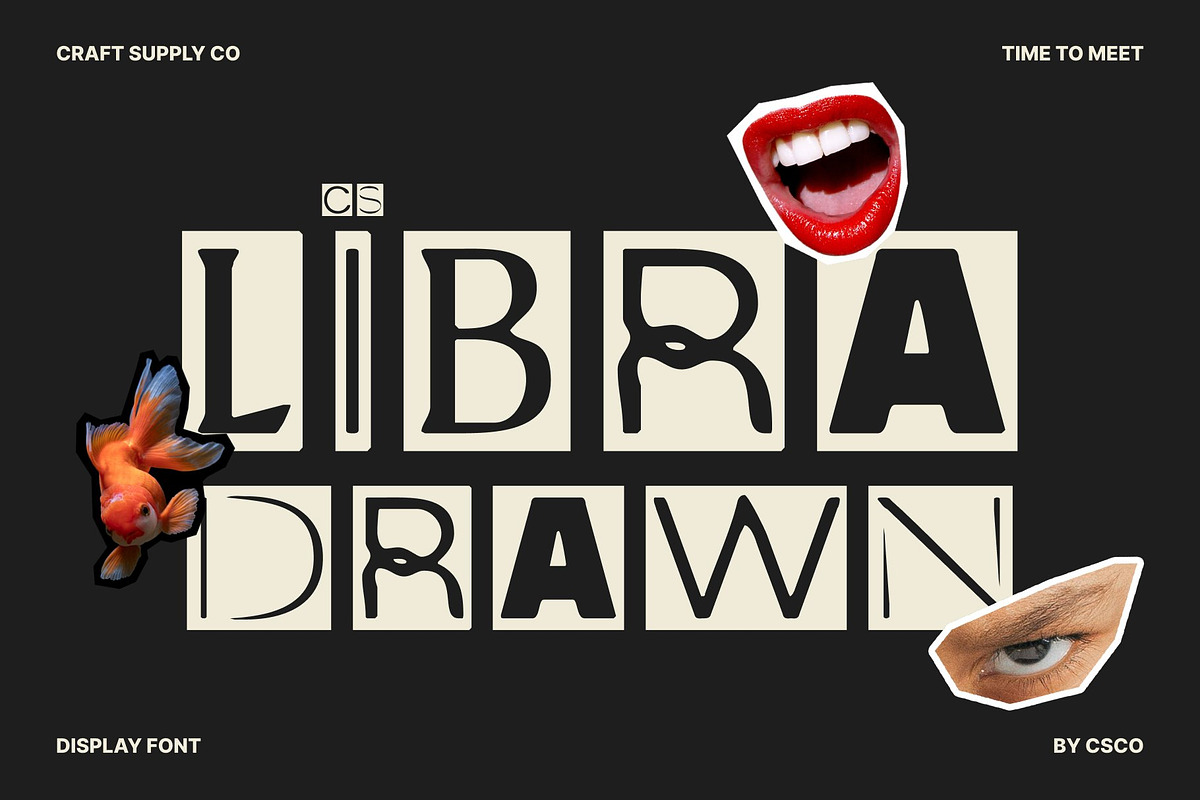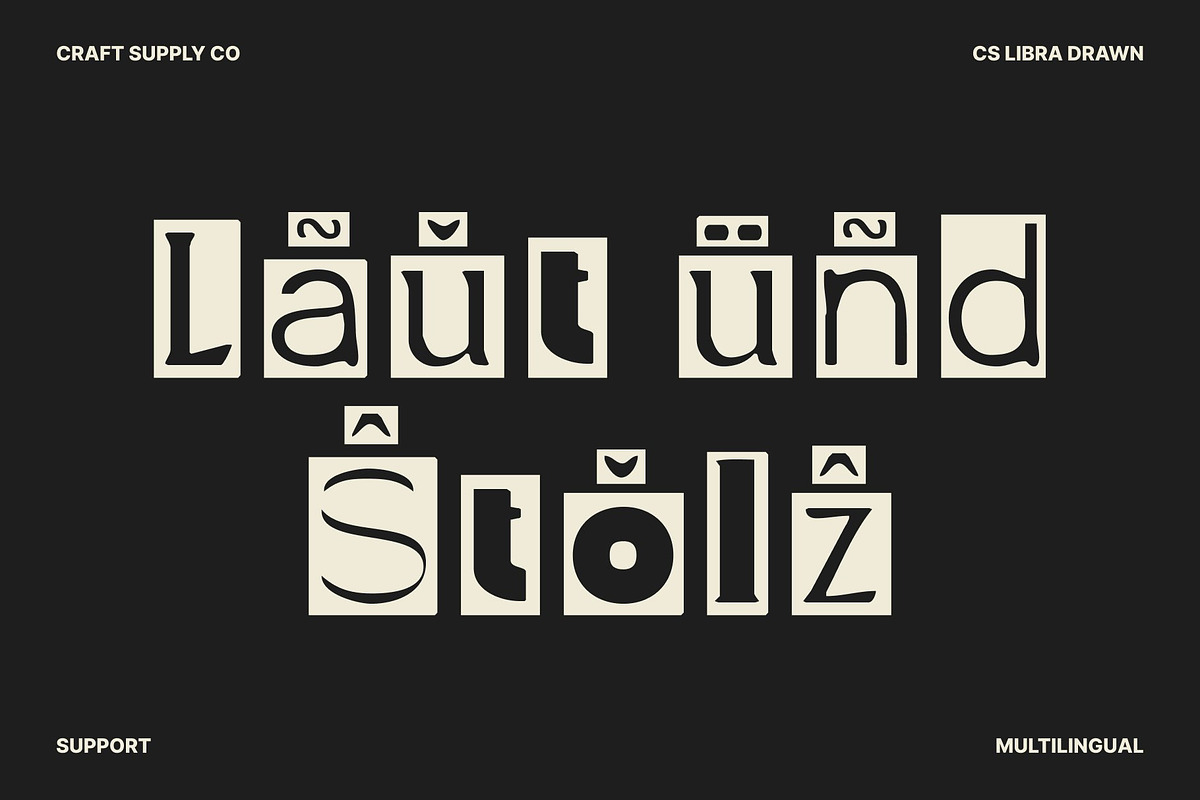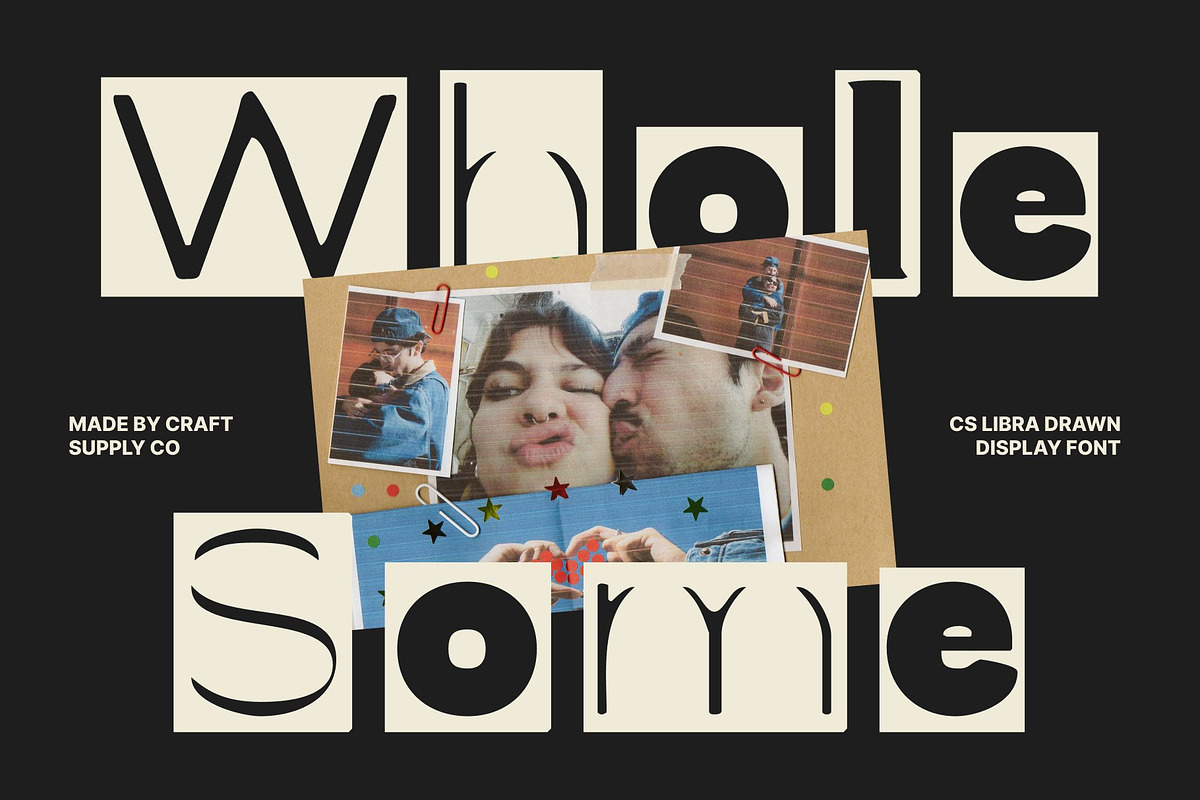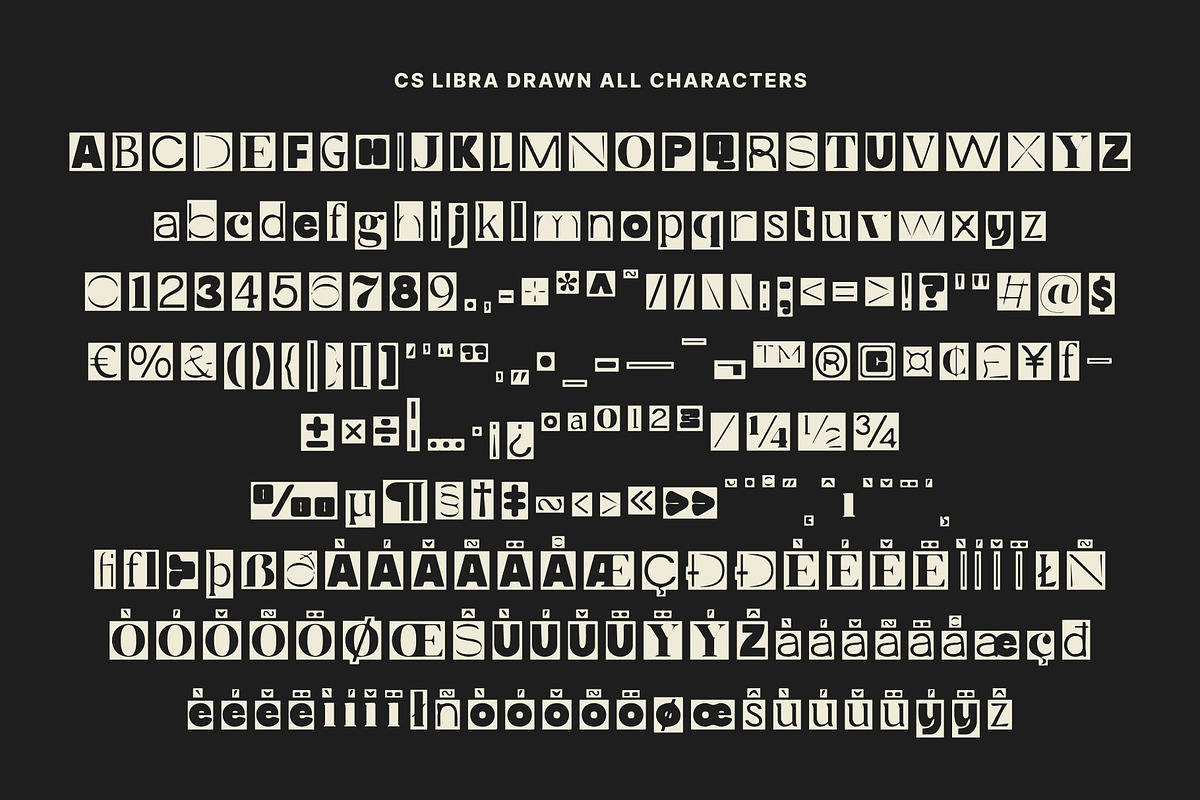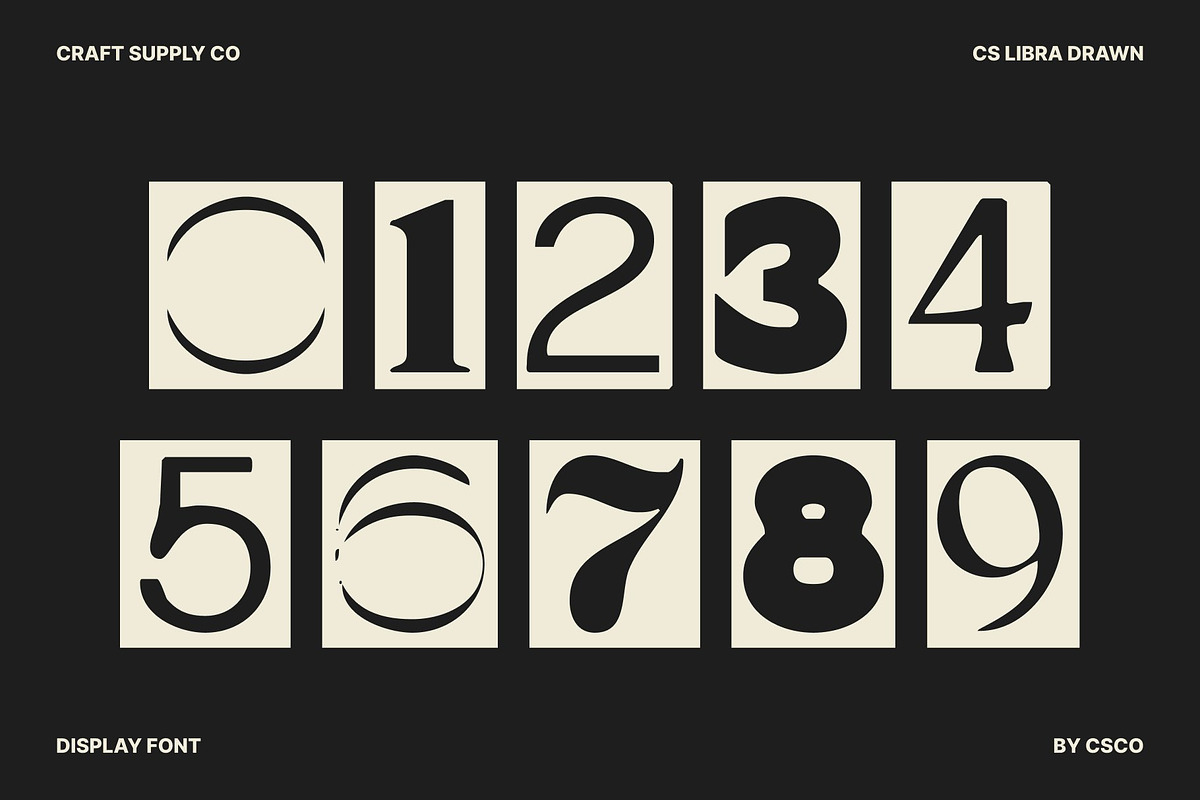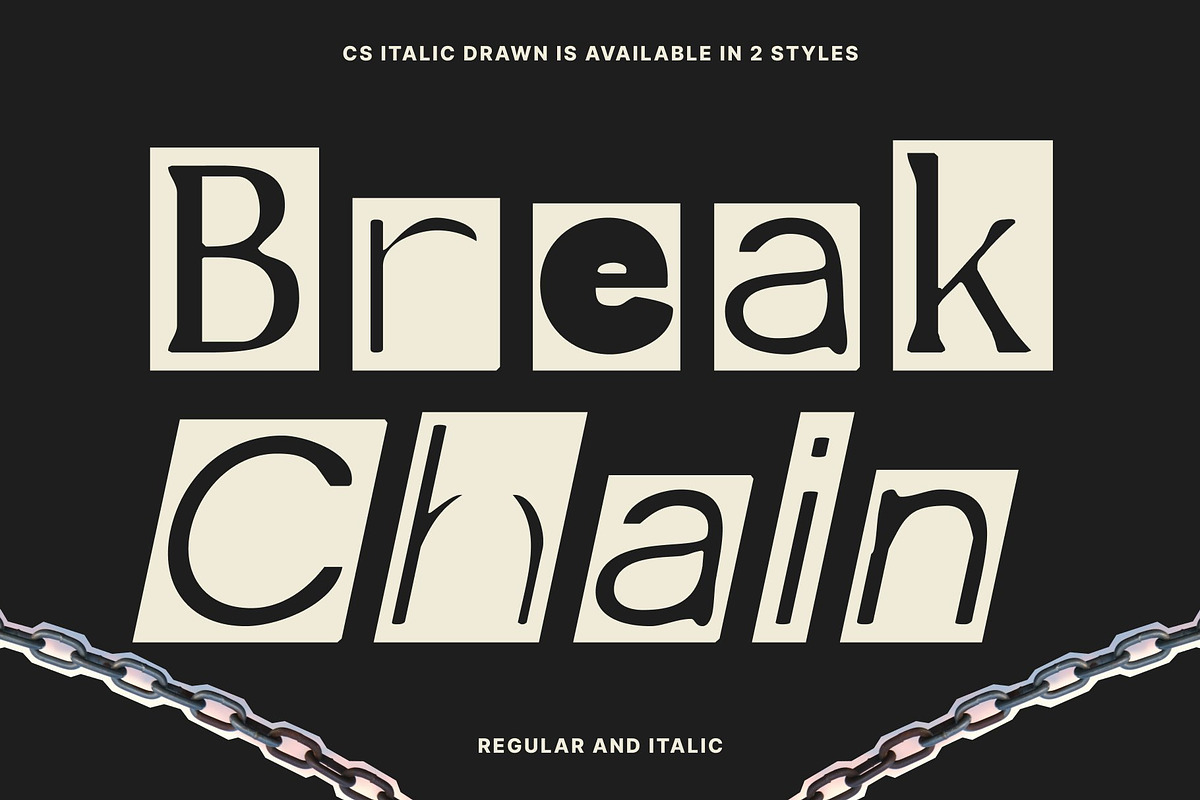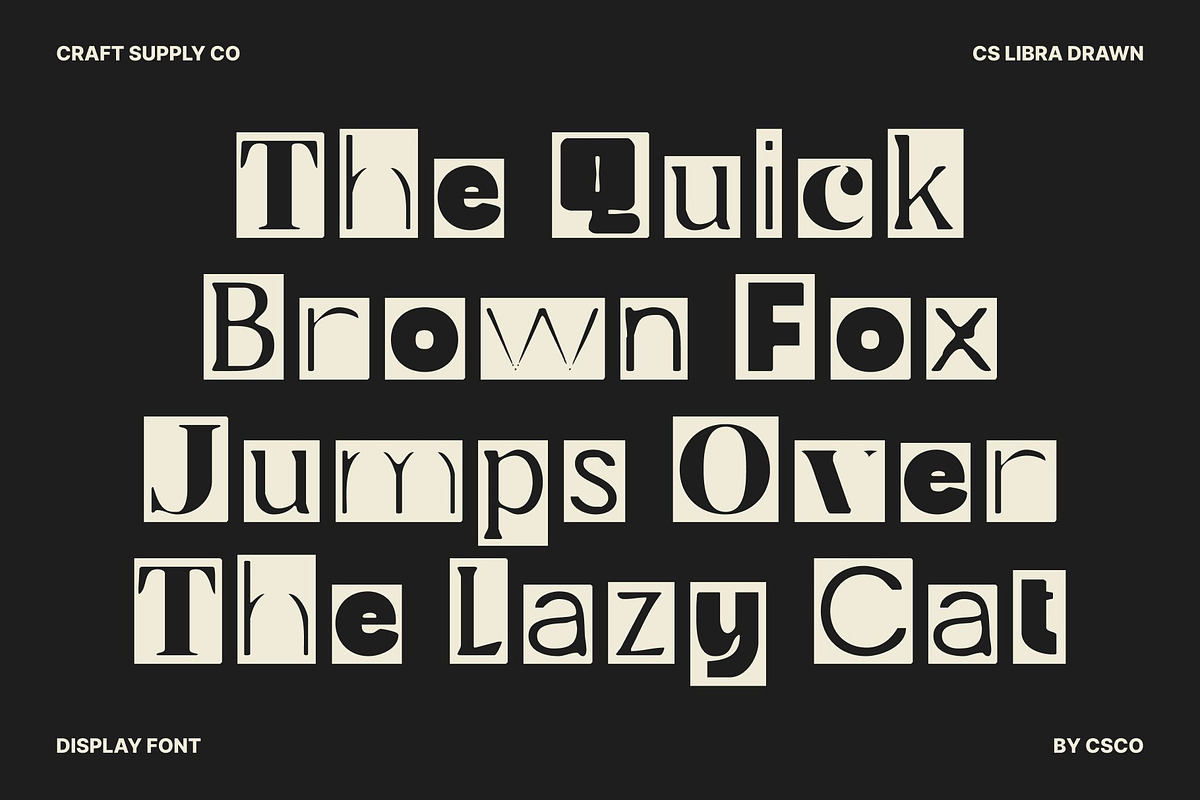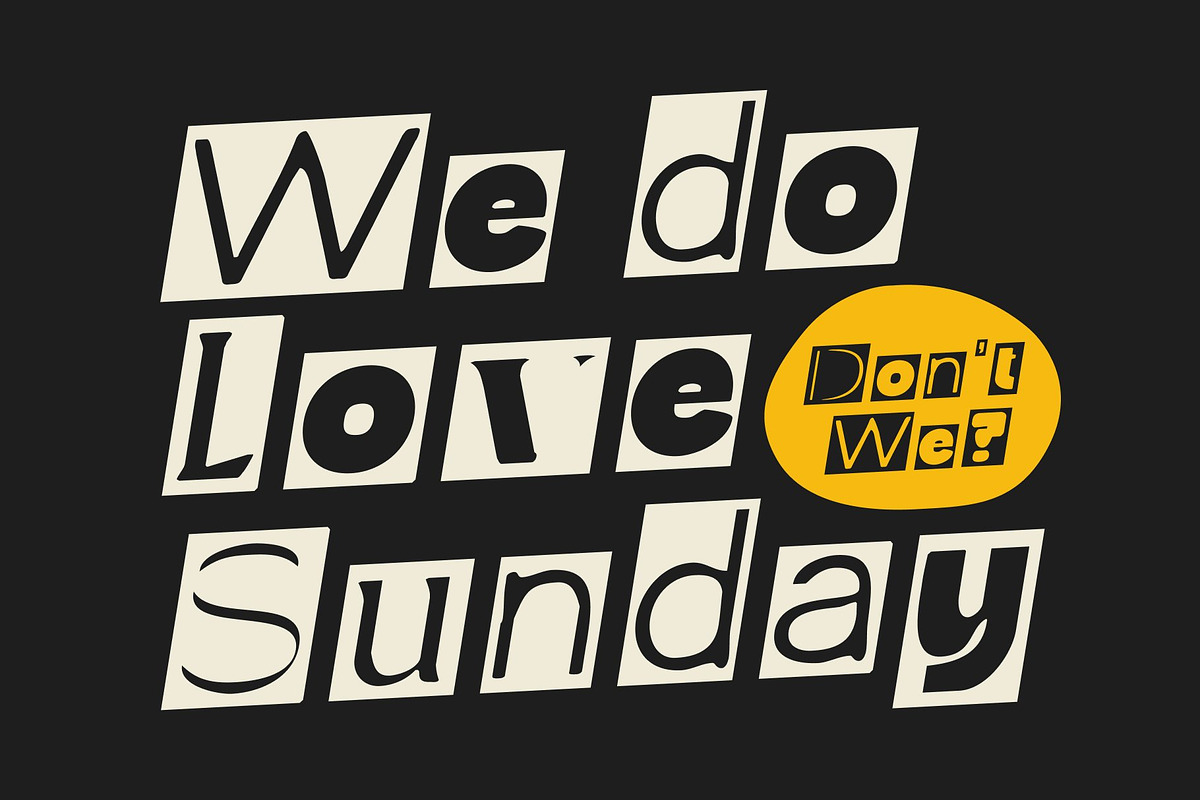
CS Libra Drawn
CS Libra Drawn – Chaotic Ransom Style Display Font with Raw Hand-Drawn Texture
A Bold Ransom-Style Font Filled with Chaos and Rebellion This is a disruptive and rebellious ransom-style display font designed to capture the bold, chaotic energy of cut-and-paste typography. Each character features mismatched shapes and collage-inspired forms, creating a visual rhythm that feels unpredictable and deliberately uneven.
Hand-Drawn Texture for Grit, Drama, and Authentic Imperfection What elevates this font is its expressive hand-drawn effect. The drawn texture infuses every letter with a raw, gritty personality, making the font feel more organic and rebellious than traditional ransom styles. Instead of clean digital edges, you get imperfect strokes, ink-like details, and a handmade roughness that intensifies the chaotic visual impact.
Perfect for Posters, Edgy Branding, and Album Covers This font thrives in bold, experimental, and expressive design environments. Use it for disruptive branding concepts, punk- or grunge-inspired posters, zine layouts, album covers, or any project that demands a loud, unruly personality. Its unpredictable shapes help you build visual tension and drama, ensuring that your message grabs attention immediately.
A Unique Typeface for Designers Who Dare to Be Different More than just a display font, this font is a creative tool for rebellion. Its chaotic structure, handmade texture, and collage-style variety give designers the ability to create visuals that feel raw, emotional, and undeniably original.